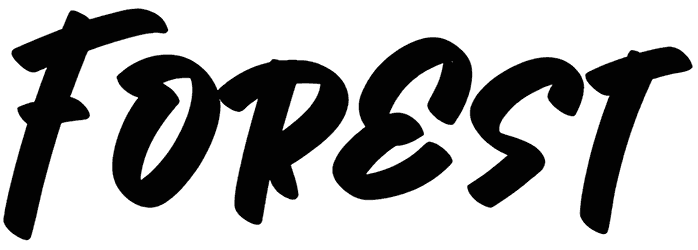
You can make the possible outcomes out of a script font, such as Forest, that comes with crooked and tilted characters. This handwritten font offers a lovely mixture of lowercase and uppercase letters, so you can utilize it in a wide range of graphic projects like branding, posters, logos, billboards, or magazines. Also, don’t ignore this point that it carries a feeling of personalization, genius, vitality, or naturalism.
special creative products for you, our products will give you an extraordinary experience.the latest style letters are perfect for wall displays, wedding invitations, social media post logos,
advertisements, product packaging, product designs, labels, photography, watermarks, invitations, stationery,